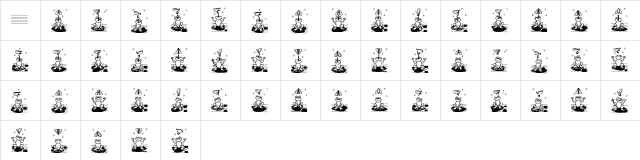
Frogii Regular
Design Context for Frogii Typeface
Frogii is a composed and adaptable typeface that performs quietly and consistently across a wide range of design contexts.